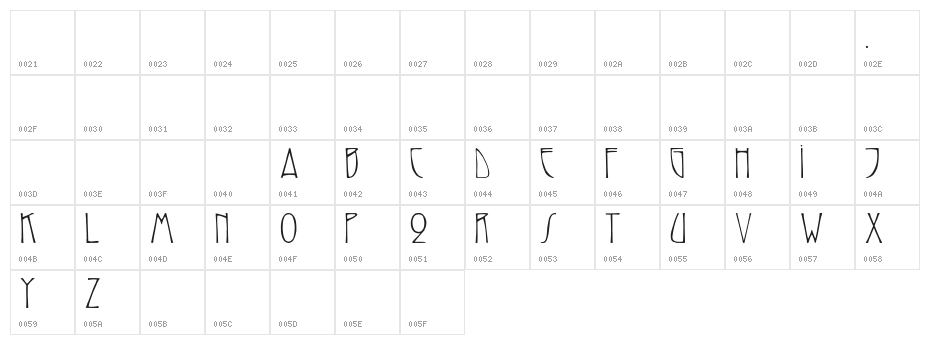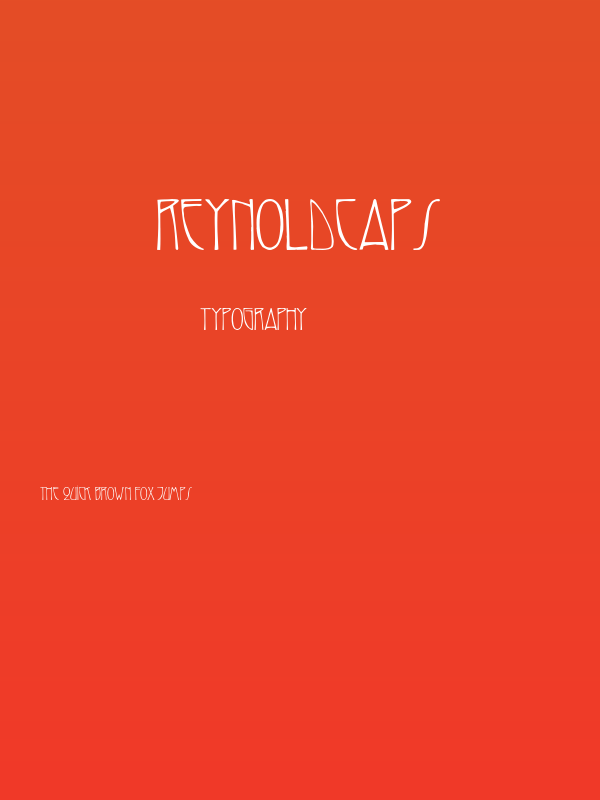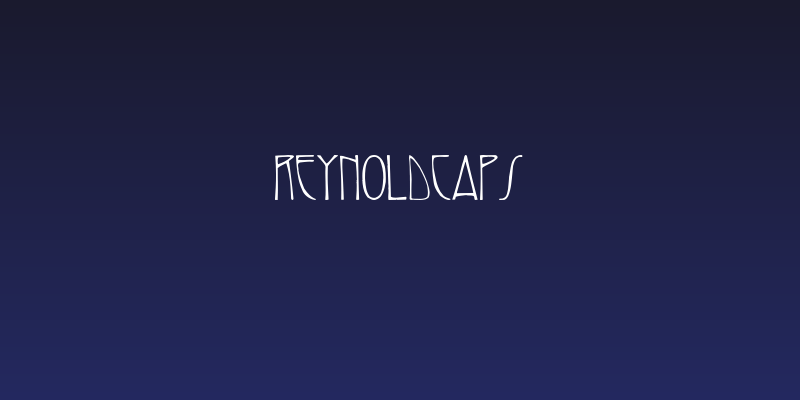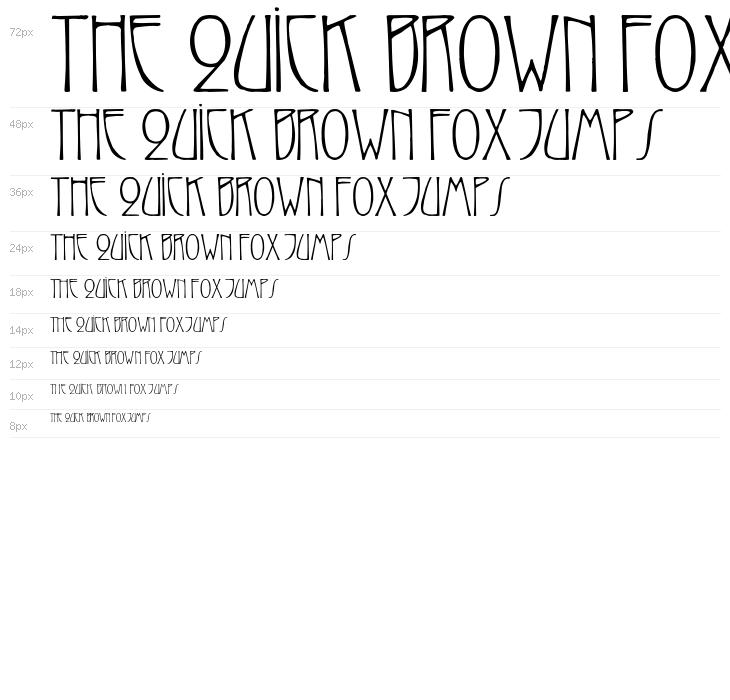
ReynoldCaps Font
ReynoldCaps Description
This font features a unique and artistic design, characterized by elongated and narrow letterforms that convey a sense of elegance and sophistication. The strokes are thin and consistent, with a slight curvature that adds a touch of fluidity to the overall appearance. The uppercase letters exhibit a distinct style, with some characters incorporating unexpected angles and curves, creating a visually intriguing effect. The font's design is both modern and timeless, making it suitable for a variety of creative applications. Its clean lines and distinctive shapes make it stand out, while maintaining readability.
| Use Case | Logos, Headlines, Branding |
| Proposed Projects | Ideal for branding, logos, editorial design, and creative projects that require a sophisticated and modern touch. |